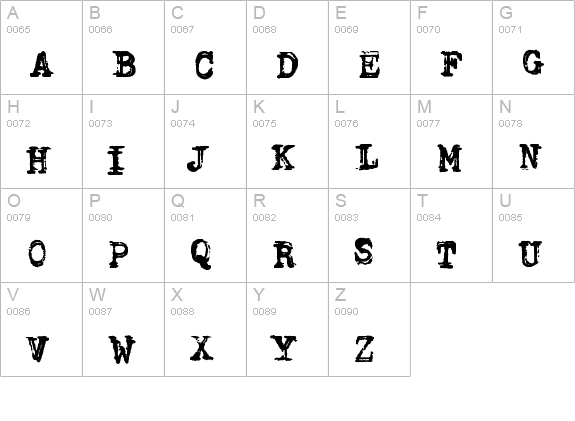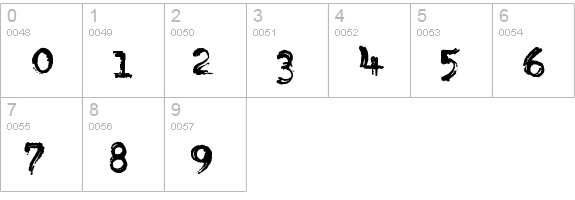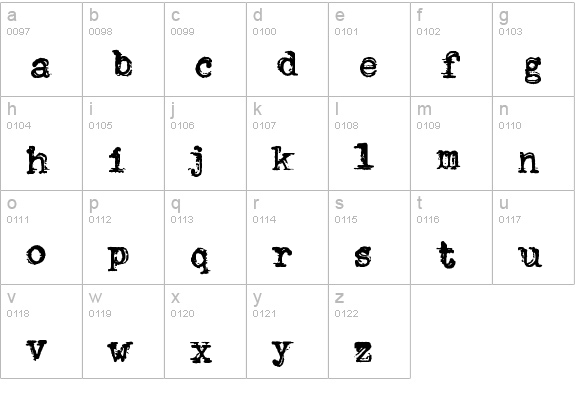
PFDumbOldTypeTwo Double Font Details
PFDumbOldTypeTwo Double font is a unique and quirky typeface that exudes charm and character. With its playful design and bold, double-lined style, this font is perfect for adding a touch of whimsy to any project. Whether you're creating invitations, posters, or branding materials, PFDumbOldTypeTwo Double font is sure to make a statement. Best of all, this font is available for free download at FontsMarket.com. You can easily access this fun and versatile typeface to elevate your designs and bring your creative vision to life. Don't miss out on the opportunity to add PFDumbOldTypeTwo Double font to your font collection today!